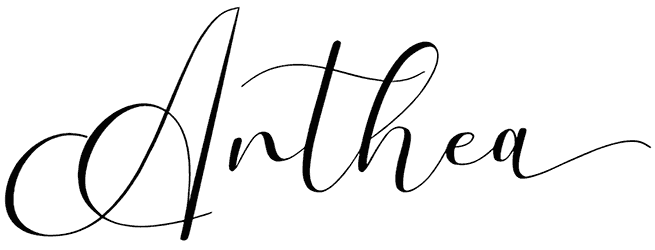
Anthea Font
Anthea, the calligraphy font is very intelligently designed, and each letter can bring you a different world. Despite the unreadability of this fashion font, it can capture emotions and place them exactly where you want them.
You can use the features of this stylish and original font to design wedding cards, university courses, exhibition posters, and romantic movies. You can also search the RB library for similar options to compensate for the lack of numbers in this handwritten font.